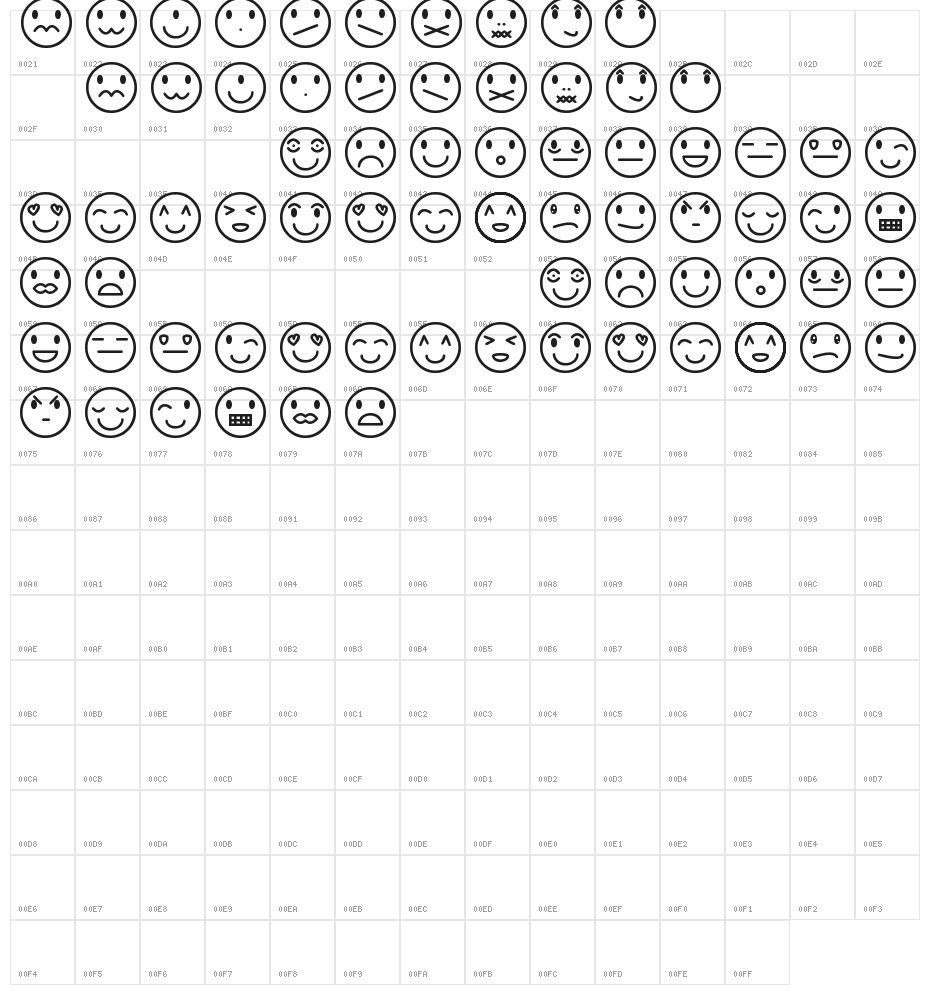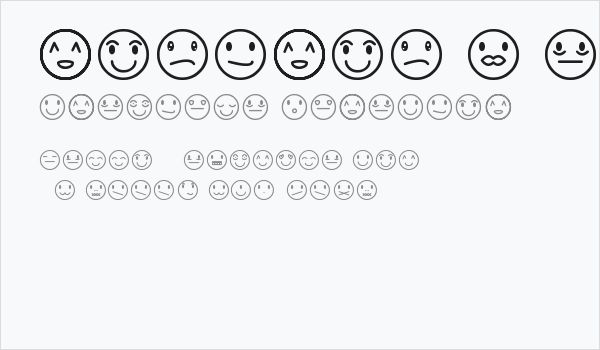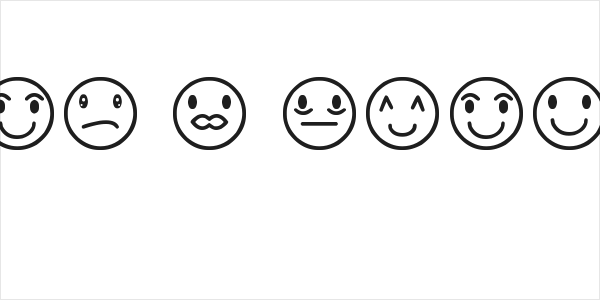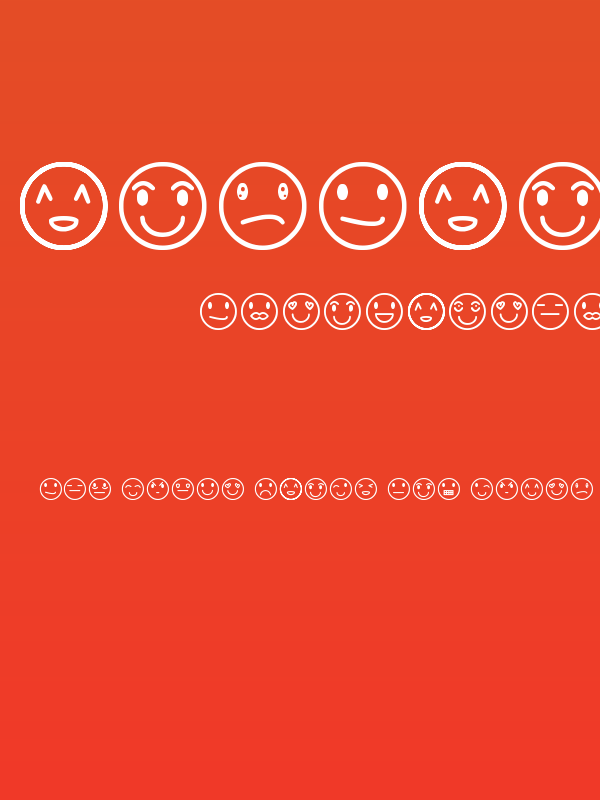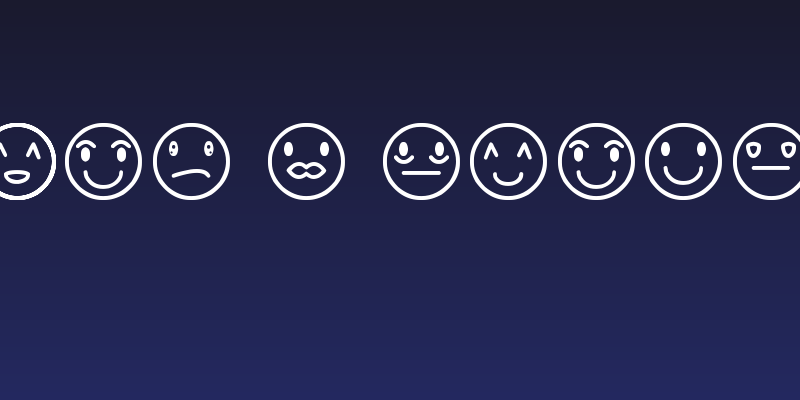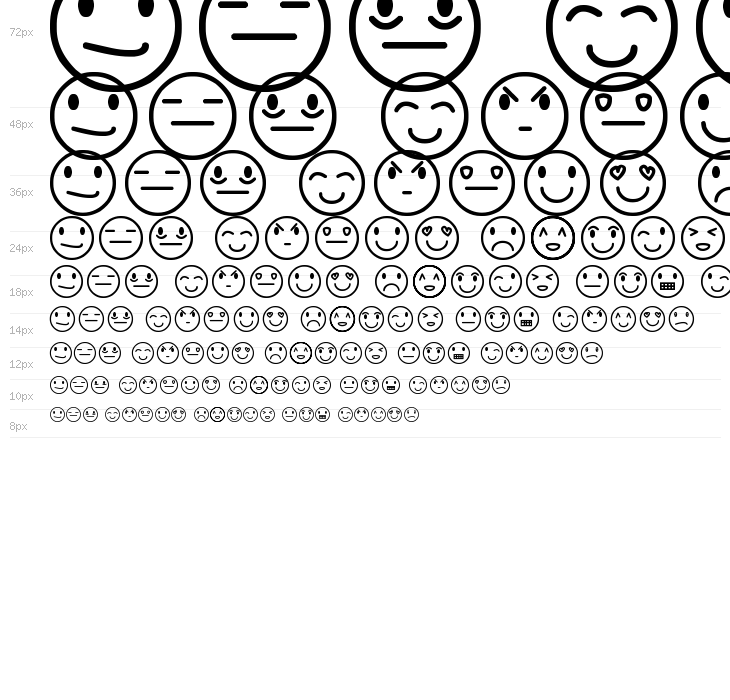
Rostros y emociones Font
Rostros y emociones Description
A decorative font consisting of circular emoticon faces expressing various emotions, including happiness, sadness, surprise, love, anger, and confusion. Each character is a simple black outline of a face with minimalistic facial features inside the circle.
| Overall Style | Playful, expressive, informal |
| Use Case | Emojis in digital content, informal headlines, playful design elements |
| Proposed Projects | Use in informal communications, social media graphics, children's materials, playful branding, and digital messaging apps. |